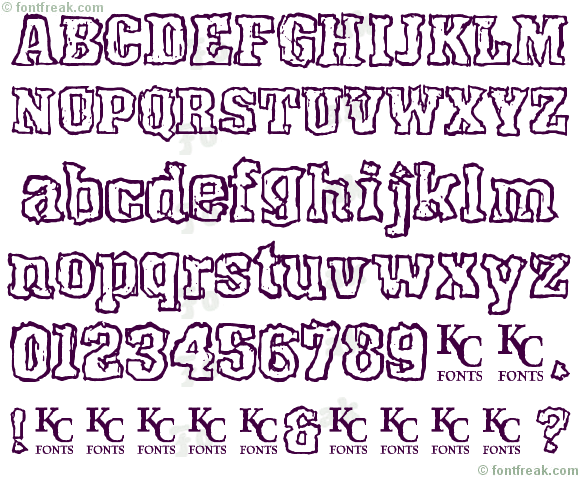
Rocky Shore
About Rocky Shore
The Rocky Shore font, designed by Kevin Christopher, is a striking display typeface that captures the rugged beauty of coastal landscapes. This decorative font features uneven strokes and a hand-drawn aesthetic that evokes a sense of adventure and spontaneity. Its bold, irregular shapes and playful character contribute to a unique visual style, making it ideal for capturing attention in various design contexts. The font's moderate contrast and varied stroke weight give it a dynamic appearance, while the ample spacing between letters enhances readability.
Rocky Shore excels in creative applications, making it a superb choice for wedding invitations that aim for a casual yet elegant vibe. Its whimsical nature also suits movie posters, particularly for films with themes of exploration or fantasy. Additionally, this font is perfect for restaurant menus seeking to convey a relaxed, beachy atmosphere, as well as for branding elements that target outdoor or adventure-focused businesses. Content creators and graphic designers will find Rocky Shore particularly appealing for social media graphics and promotional materials, as it stands out in digital formats.
The target audience for this font includes graphic designers, small business owners, and content creators who are looking to infuse their projects with an organic, artistic touch. Its free availability allows for easy access, making it a versatile tool in any designer's arsenal.
What makes Rocky Shore truly exceptional is its ability to blend playfulness with a sense of artistry, making it a standout choice for various creative endeavors. Whether you are crafting eye-catching visuals or unique branding elements, the Rocky Shore font free download provides an opportunity to elevate your design projects with a distinctive flair.